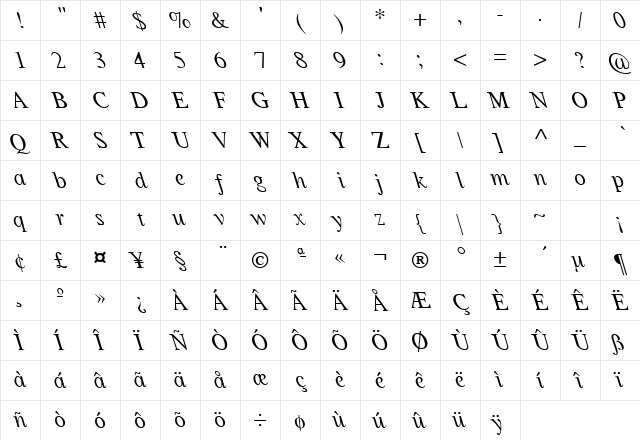
TimesItalicLefty Regular
Design Context for TimesItalicLefty
TimesItalicLefty is a composed and adaptable typeface that performs quietly and consistently across a wide range of design contexts. The slanted form adds forward momentum and visual energy.
Pro Tip: Use TimesItalicLefty for emphasis, pull quotes, and subheadings where its slanted energy can add rhythm to the layout.